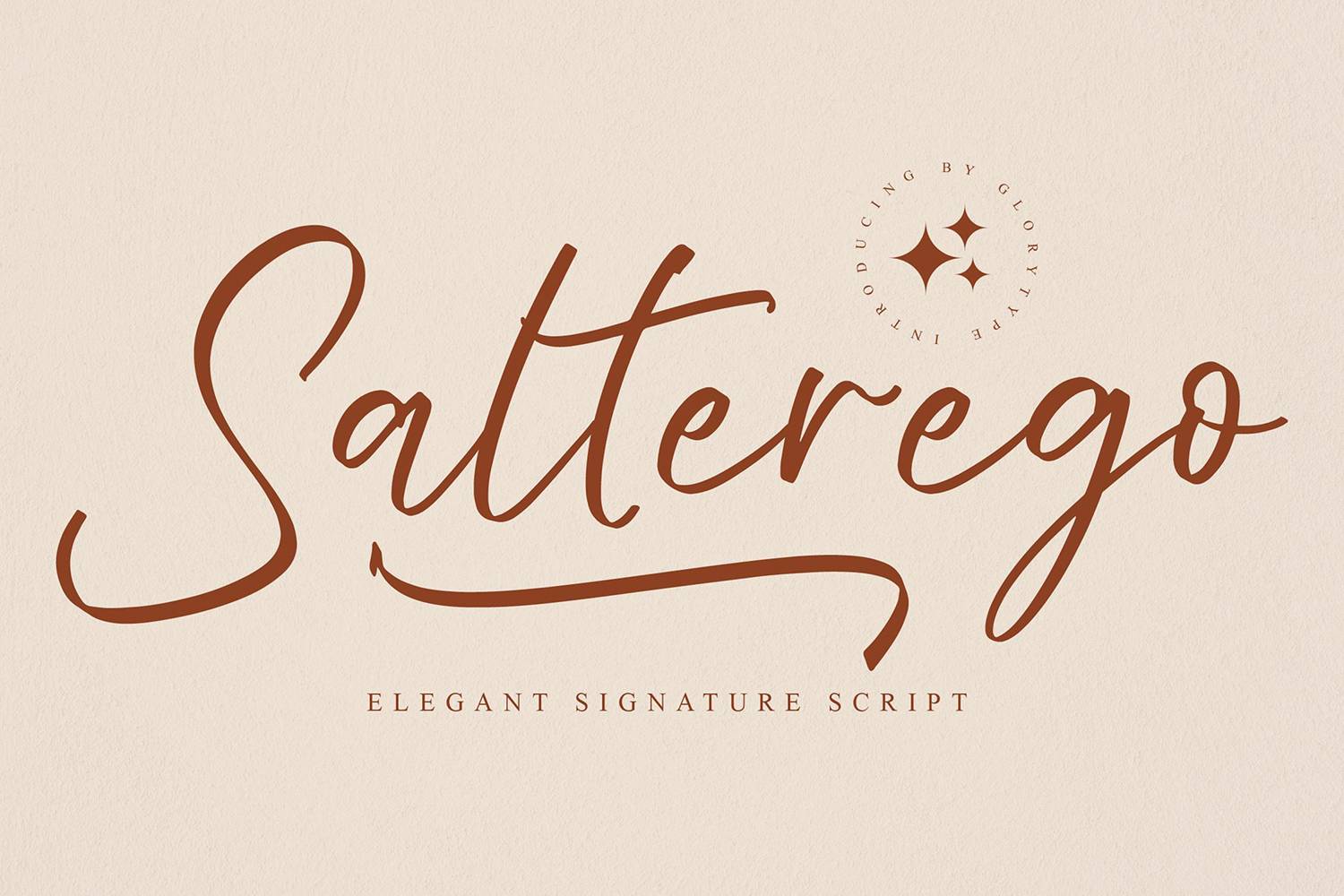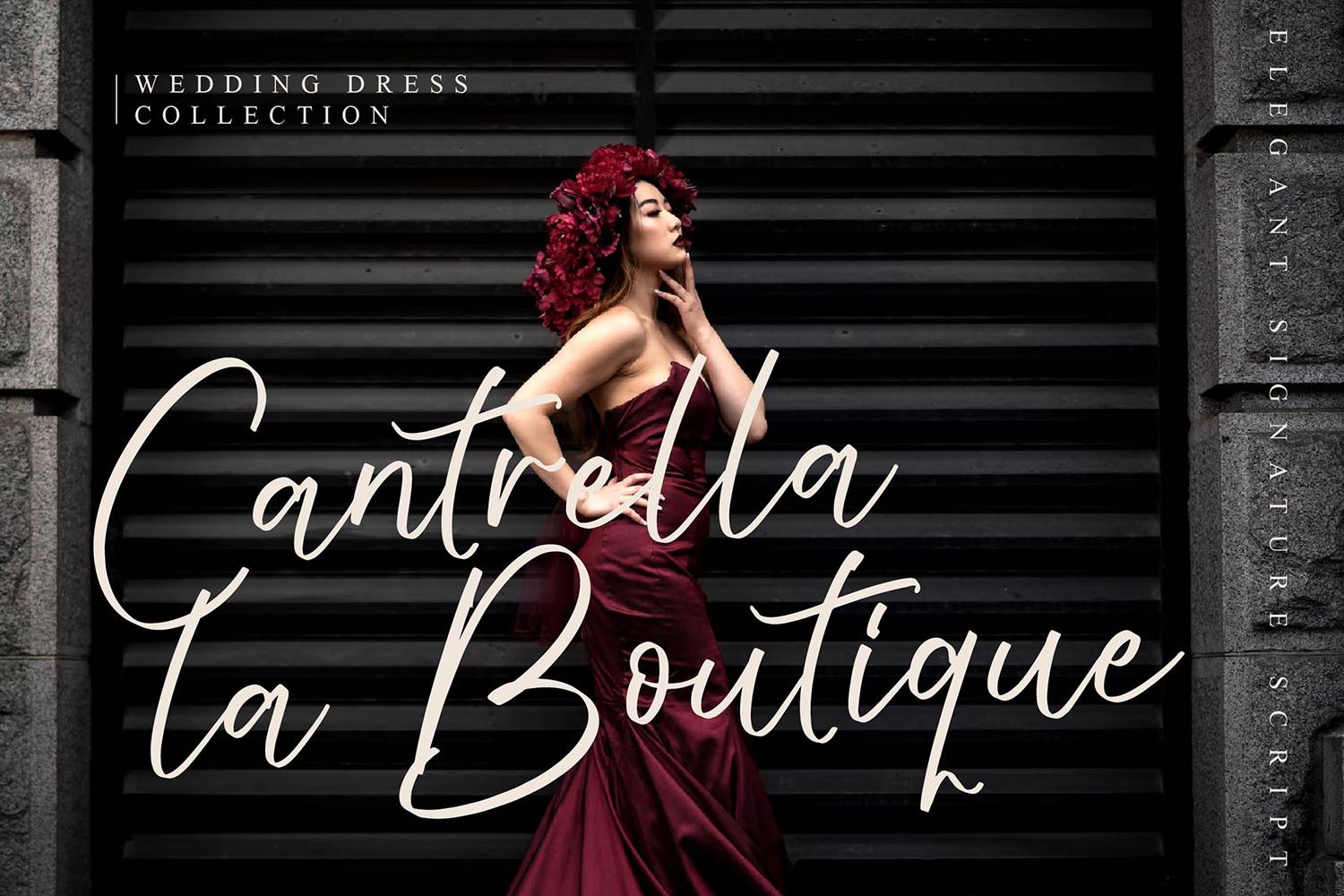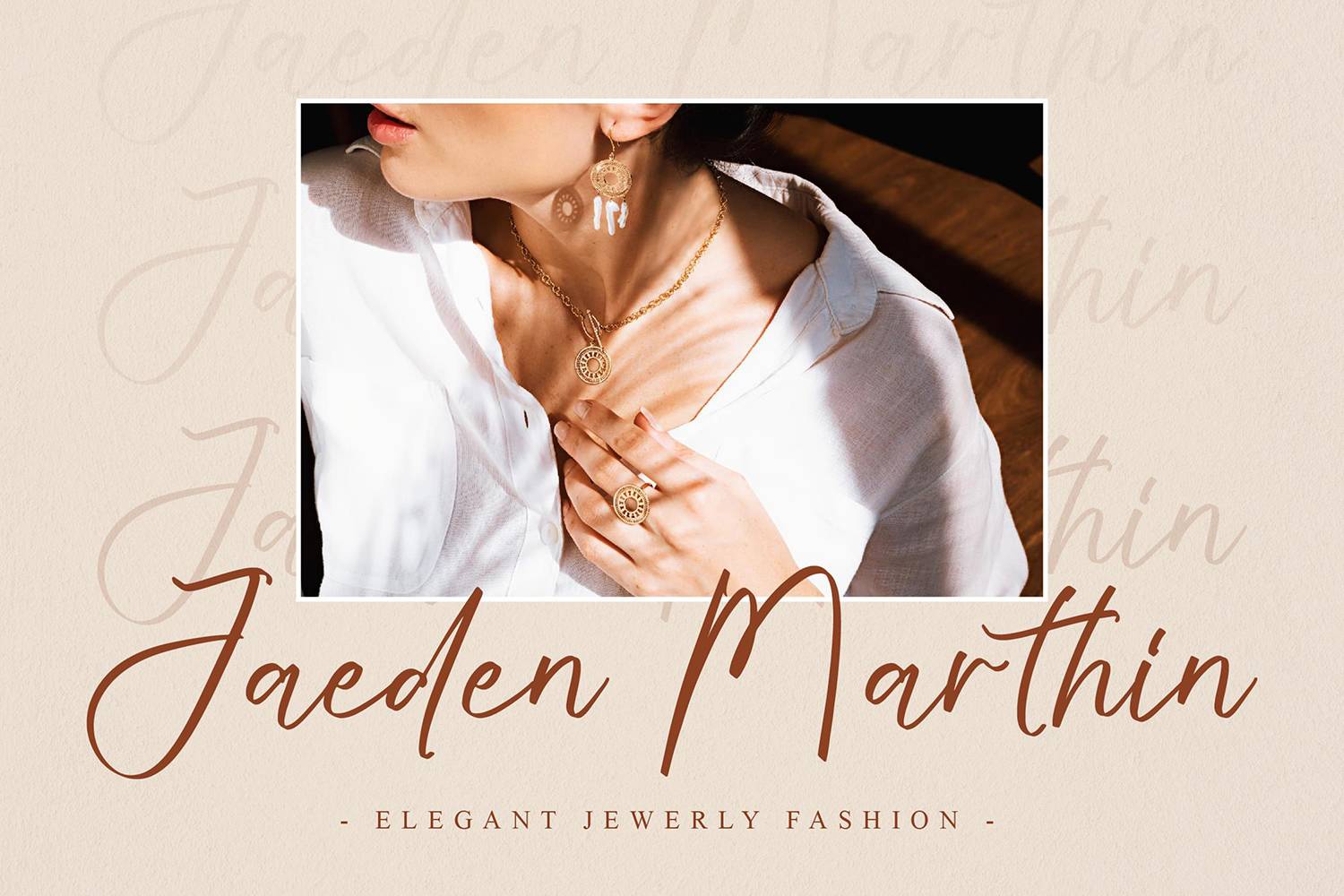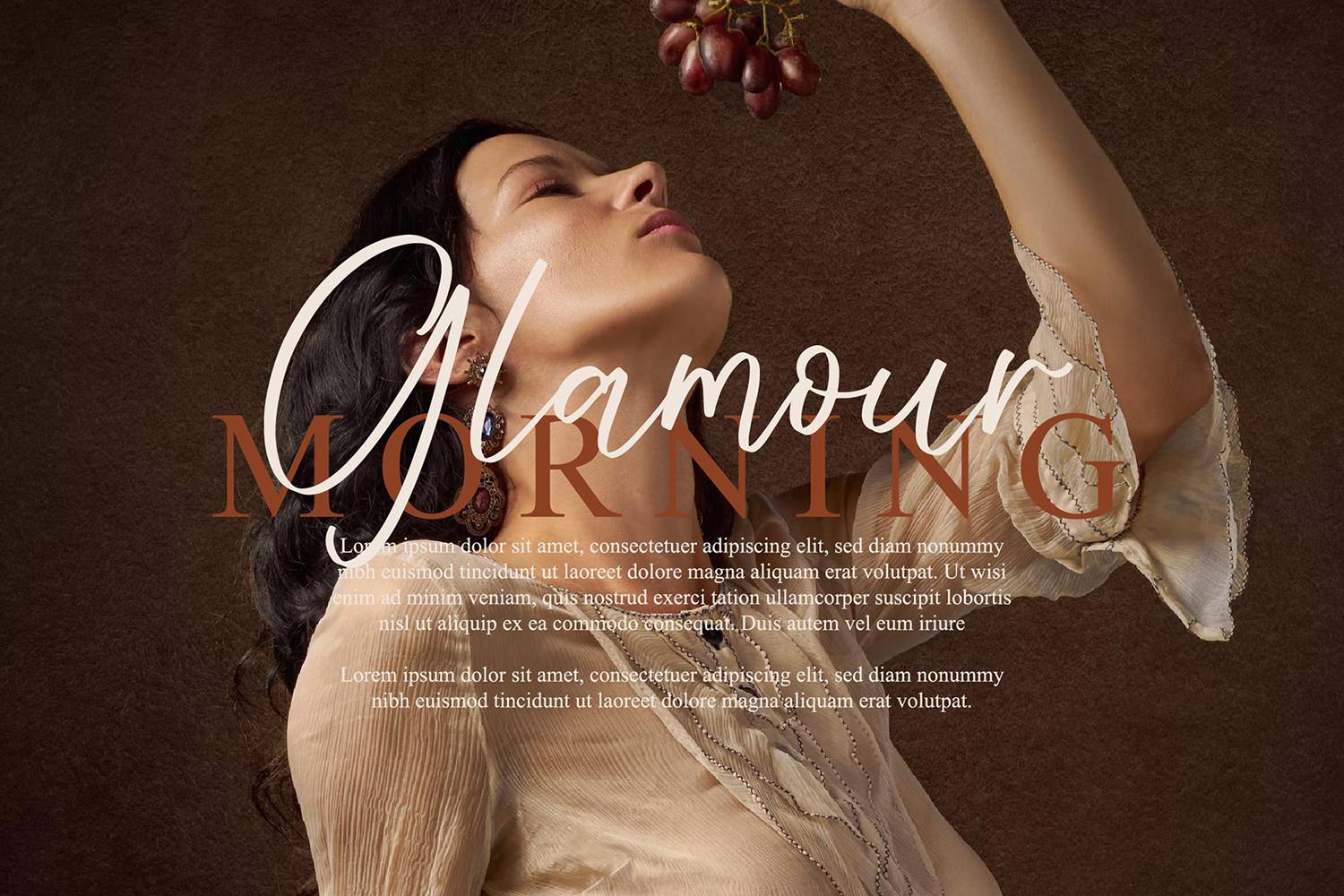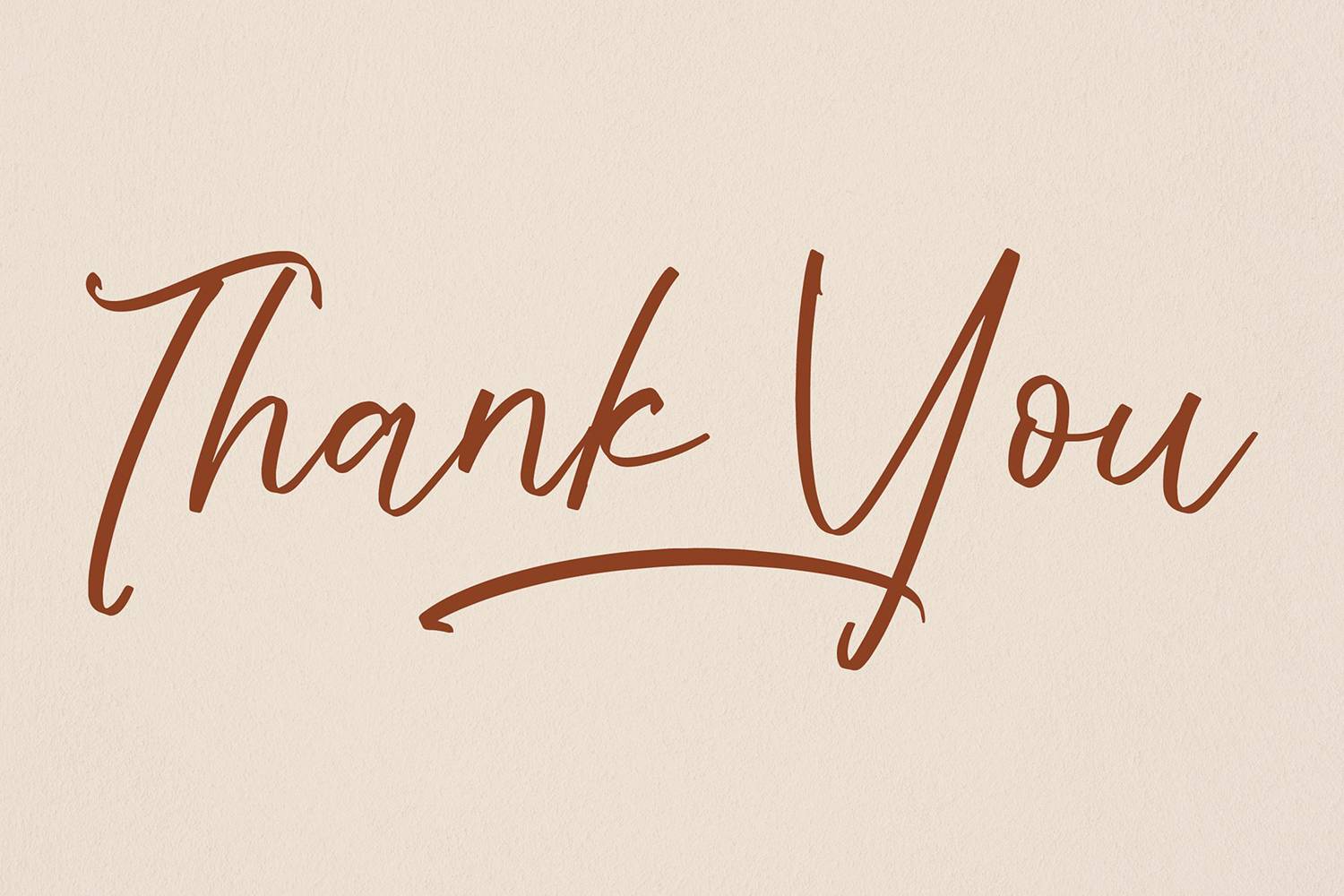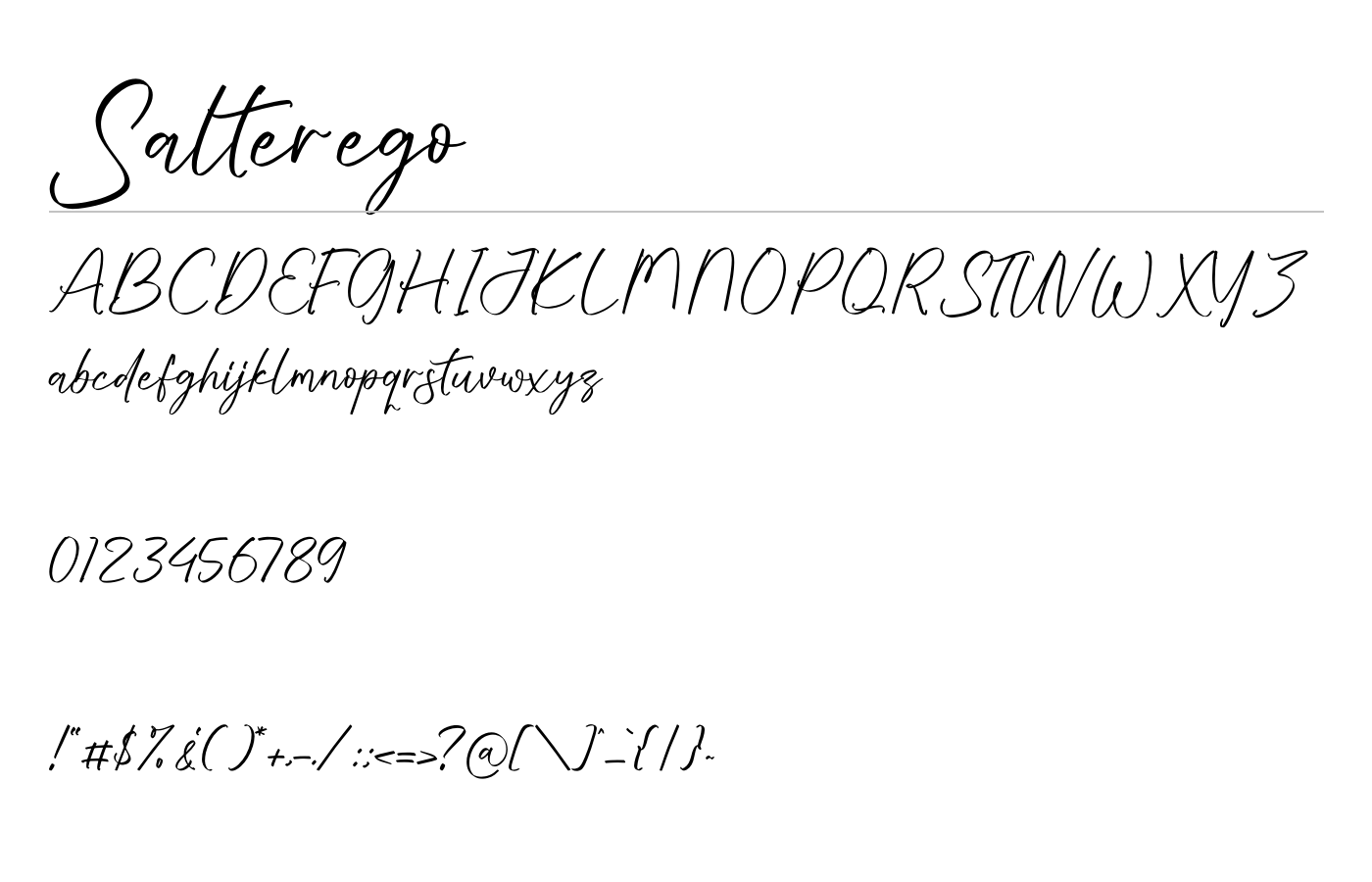
Salterego is a delicate, handwritten script font characterized by its elegant, flowing strokes and slender letterforms. Its light weight and airy spacing lend a refined, personal touch, making it ideal for invitations, branding, or projects seeking a graceful and intimate feel. This font works beautifully in contexts where a stylish yet approachable handwritten style is desired.
Salterego Font
About Salterego Font